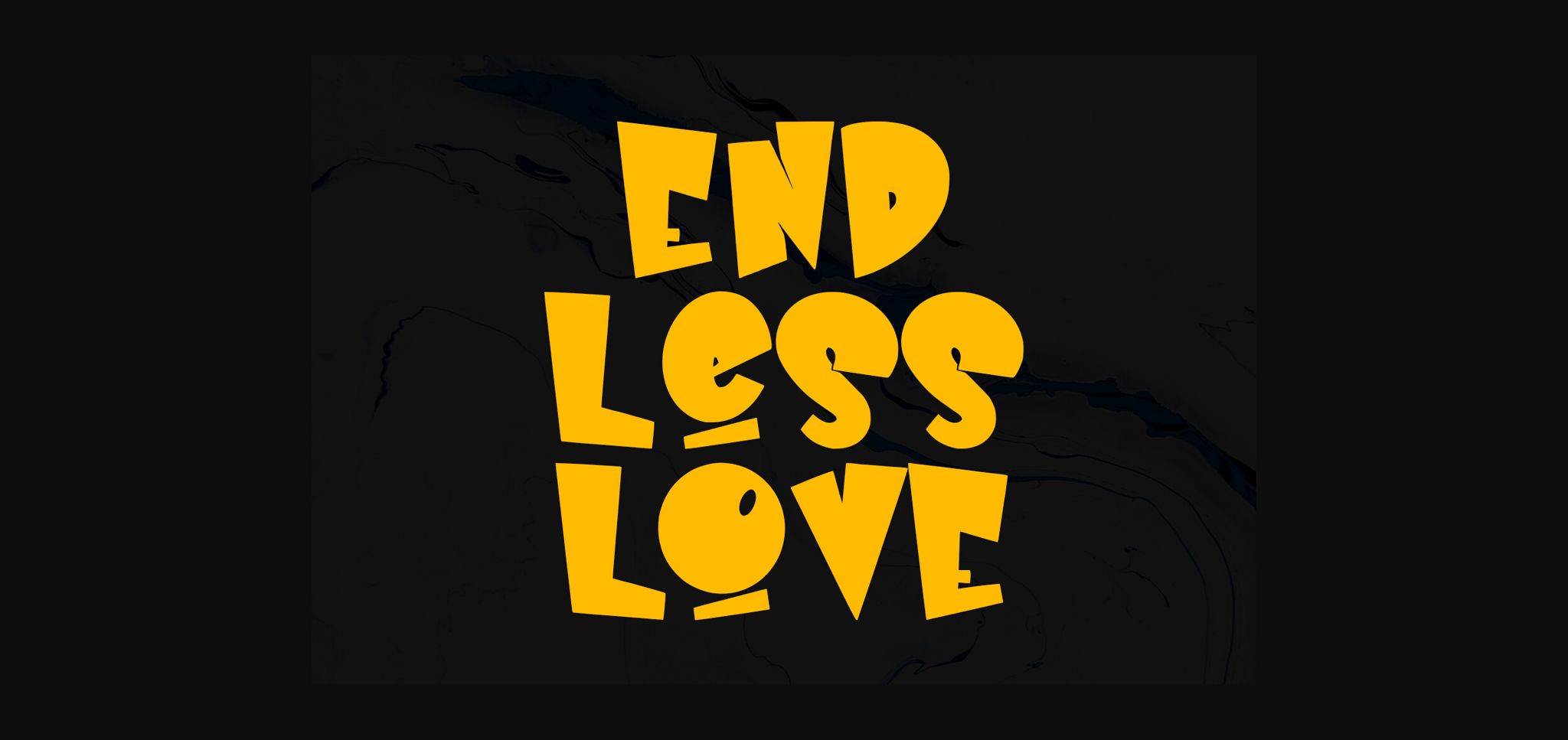
About Ennaz Font
Ennaz Graffiti Display Font is a cool and bold font style. It’s perfect for making your words pop with urban flair. Use it for posters, logos, or anything that needs an edgy vibe. Let your creativity run wild with Ennaz Graffiti Display Font!